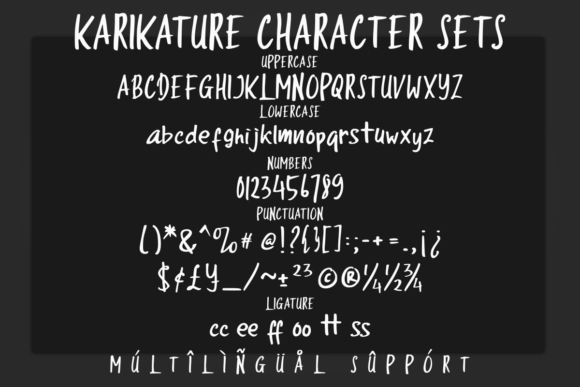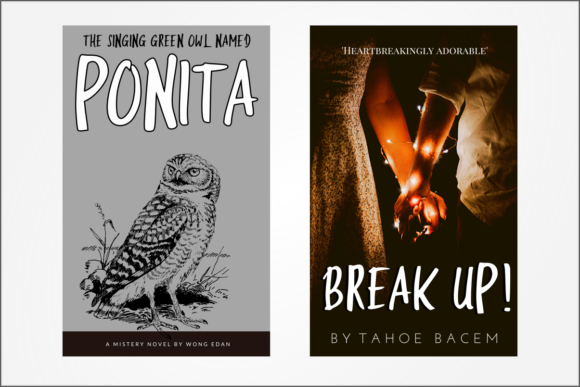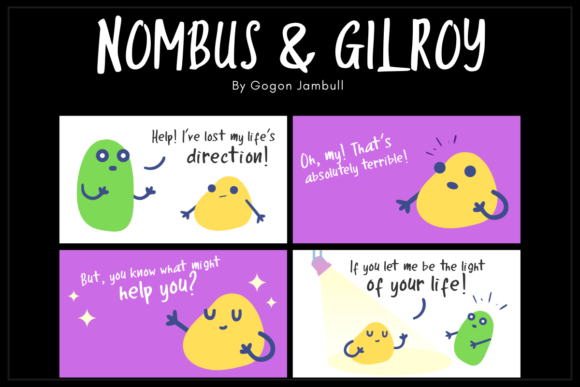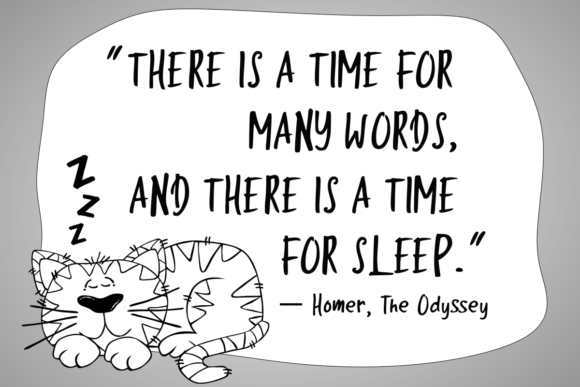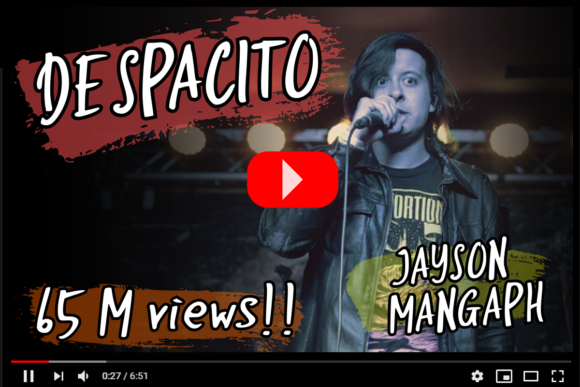
Introduction to Karikature Font
Karikature is a cute and quirky handwritten font.
It will add an incredibly joyful touch to your designs Add it to each of your creative ideas and notice how it makes them stand out.
Key Features of Karikature Font
Why Choose Karikature Font?
Karikature Font offers exceptional quality and versatility, making it a valuable addition to your design toolkit. Whether you’re creating for personal projects or commercial use, Karikature Font delivers professional results.